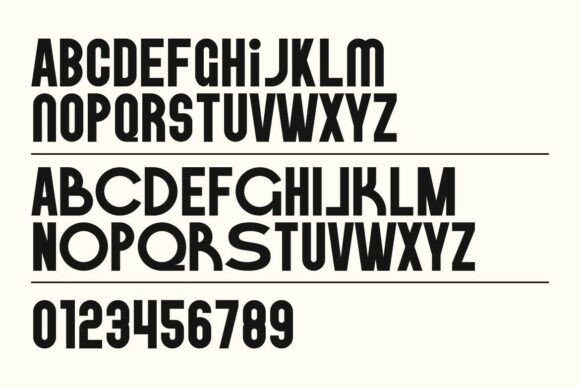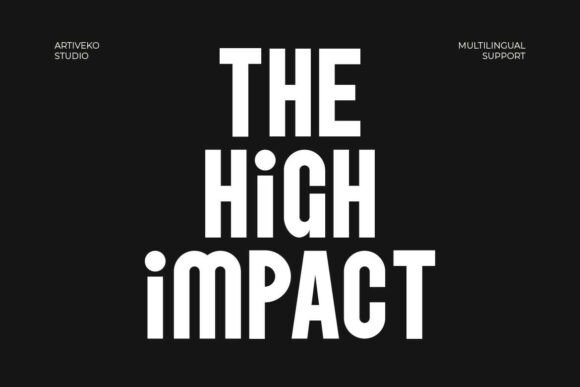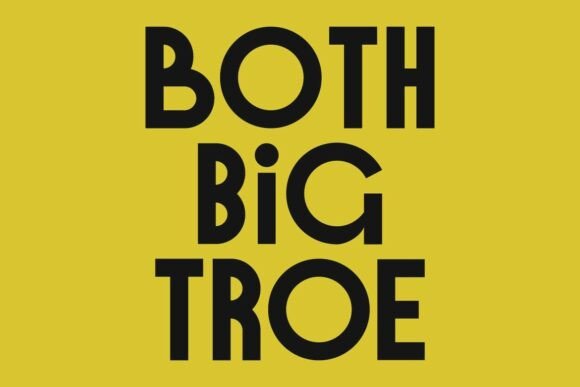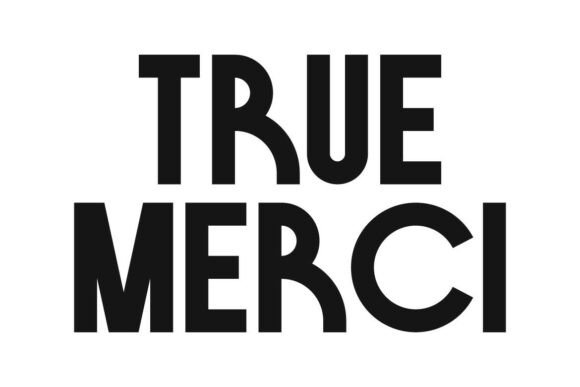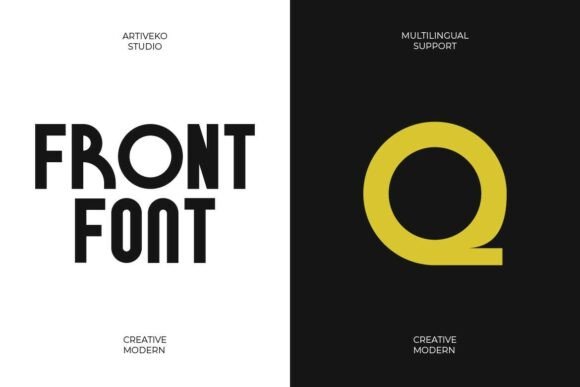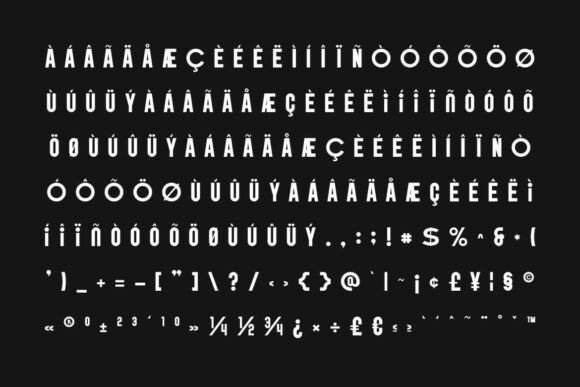
Introduction to Quory Font
Have you ever found yourself rummaging through a dusty old trunk, uncovering a vintage typewriter or a stack of yellowed letters? The tactile sensation, the nostalgic charm, and the sense of storytelling that comes with it – that’s what the Quory Font embodies.
Quory is more than just a font; it’s a design resource that brings a touch of the past to your modern creative project. With its high-quality retro-inspired design, Quory Font is perfect for designers looking to add a vintage flair to their work without sacrificing readability.
Key Features of Quory Font
- Unique characteristics: Quory Font features a modern, elegant design with a mix of rounded and geometric shapes, making it perfect for various creative projects
Honest Review: Quory Font
As a designer, I’ve had the chance to work with numerous high-quality design resources, and the Quory Font is definitely one of them. This elegant font is perfect for any creative project that requires a touch of sophistication.
- ✨ Unique design: The Quory Font features a beautiful, modern design that sets it apart from other fonts in its category.
- ✨ High-quality rendering: The font is available in both regular and bold weights, ensuring that it looks great on any background.
- ⚠️ Limited font sizes: The font is only available in a limited range of font sizes, which may not be ideal for all design projects.
Overall, I’m impressed with the Quory Font and would definitely recommend it to designers looking for a high-quality font for their creative projects.
The Quory Font is perfect for a variety of creative projects, including:
- Graphic design and branding
- Print and digital media